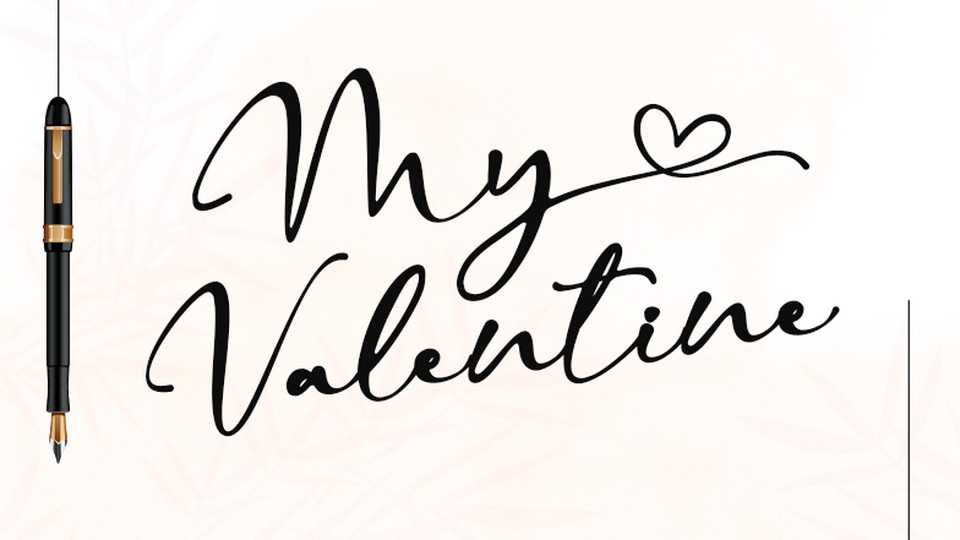
Download My Valentine font, a unique blend of a classic and modern handwriting with a romantic touch. My Valentine is perfect for wedding invites, events, invitations, logos, blogs, custom addresses, stamps, packaging, greeting cards and more.